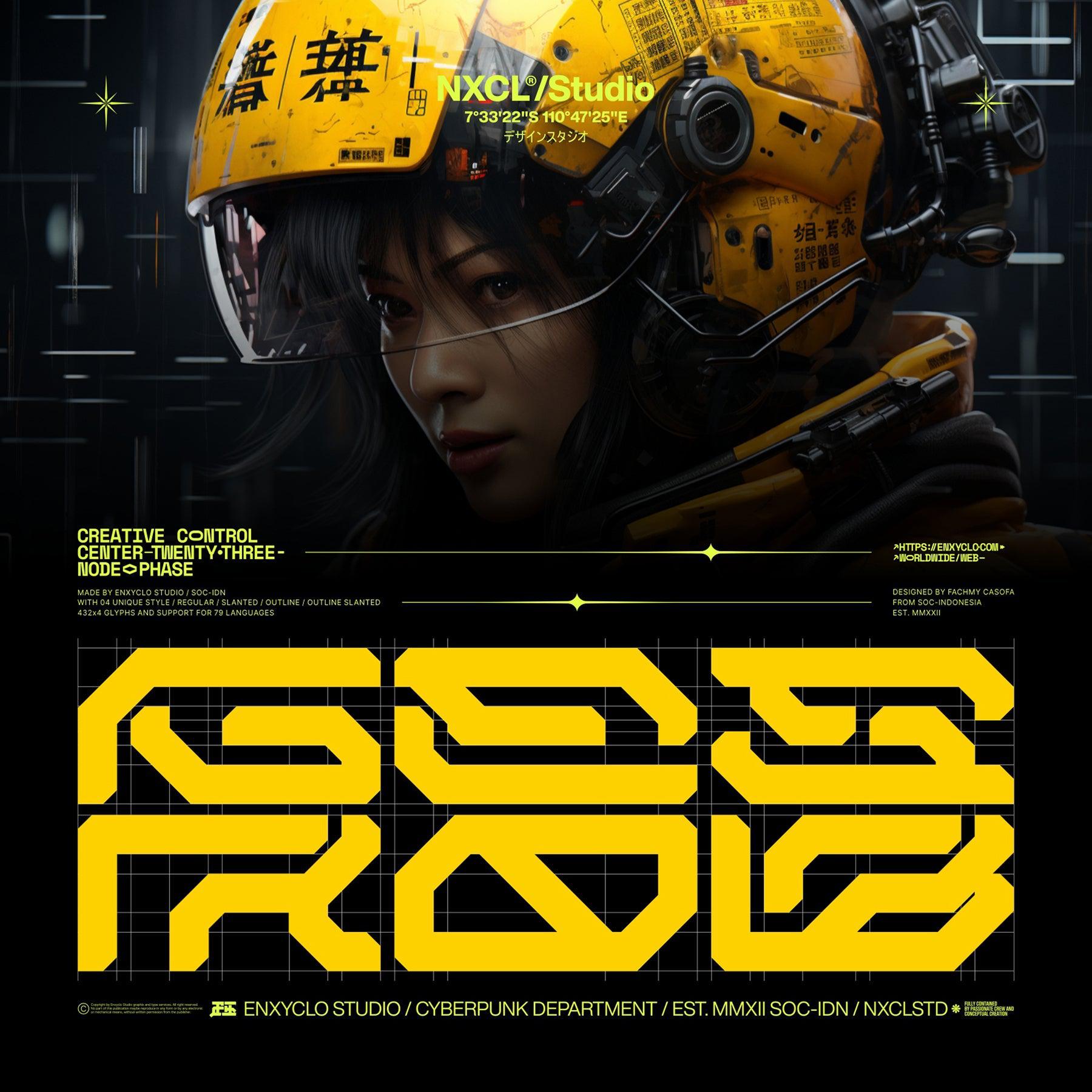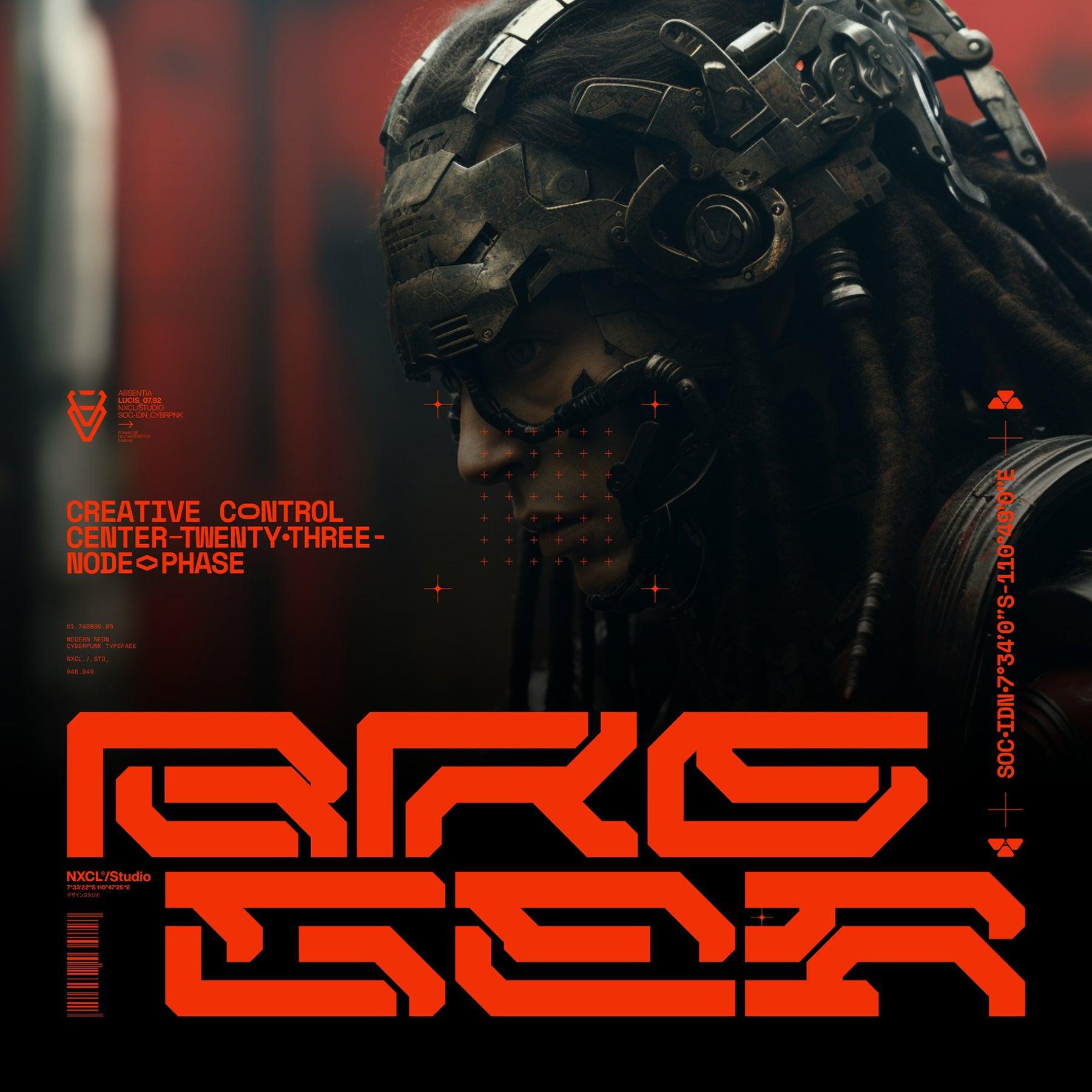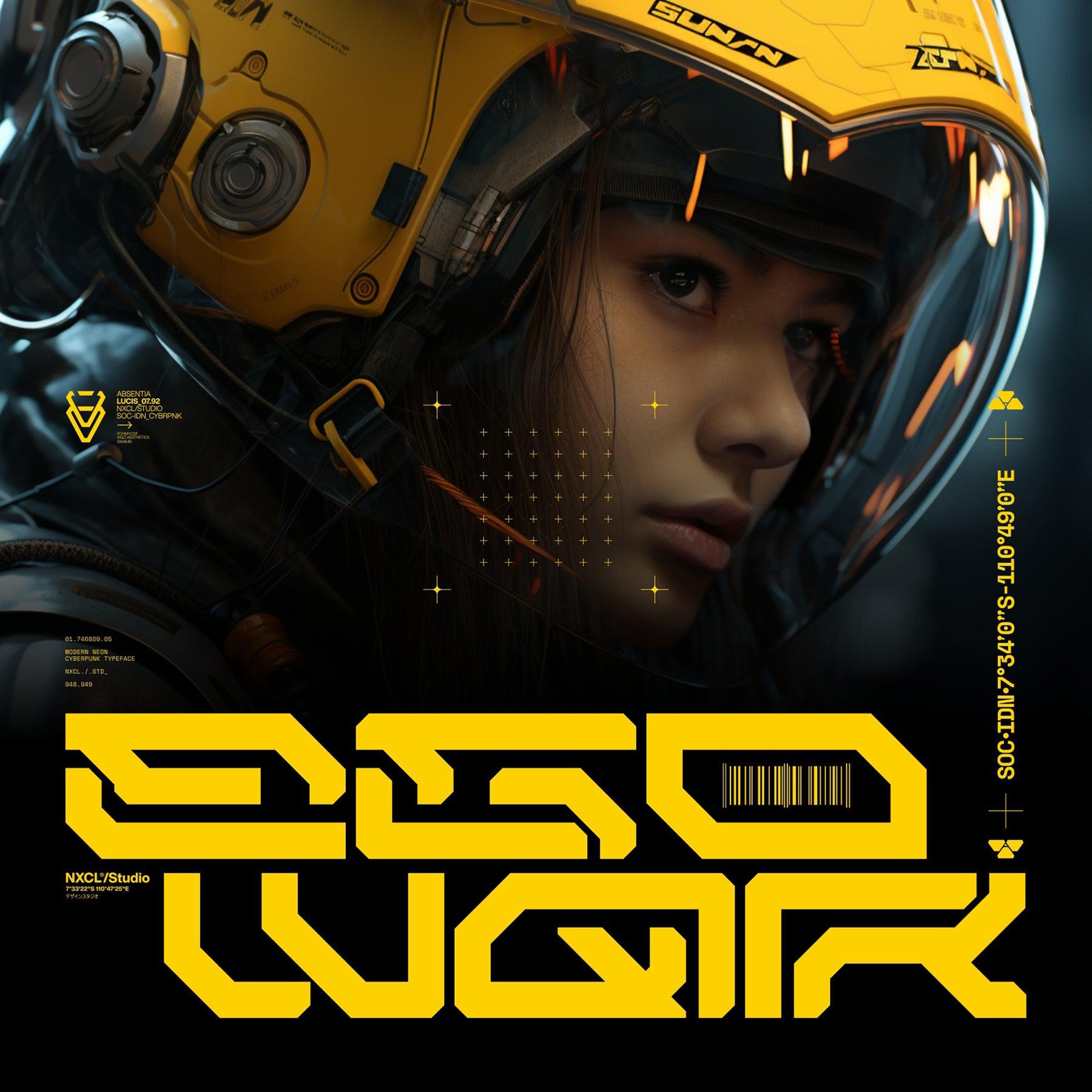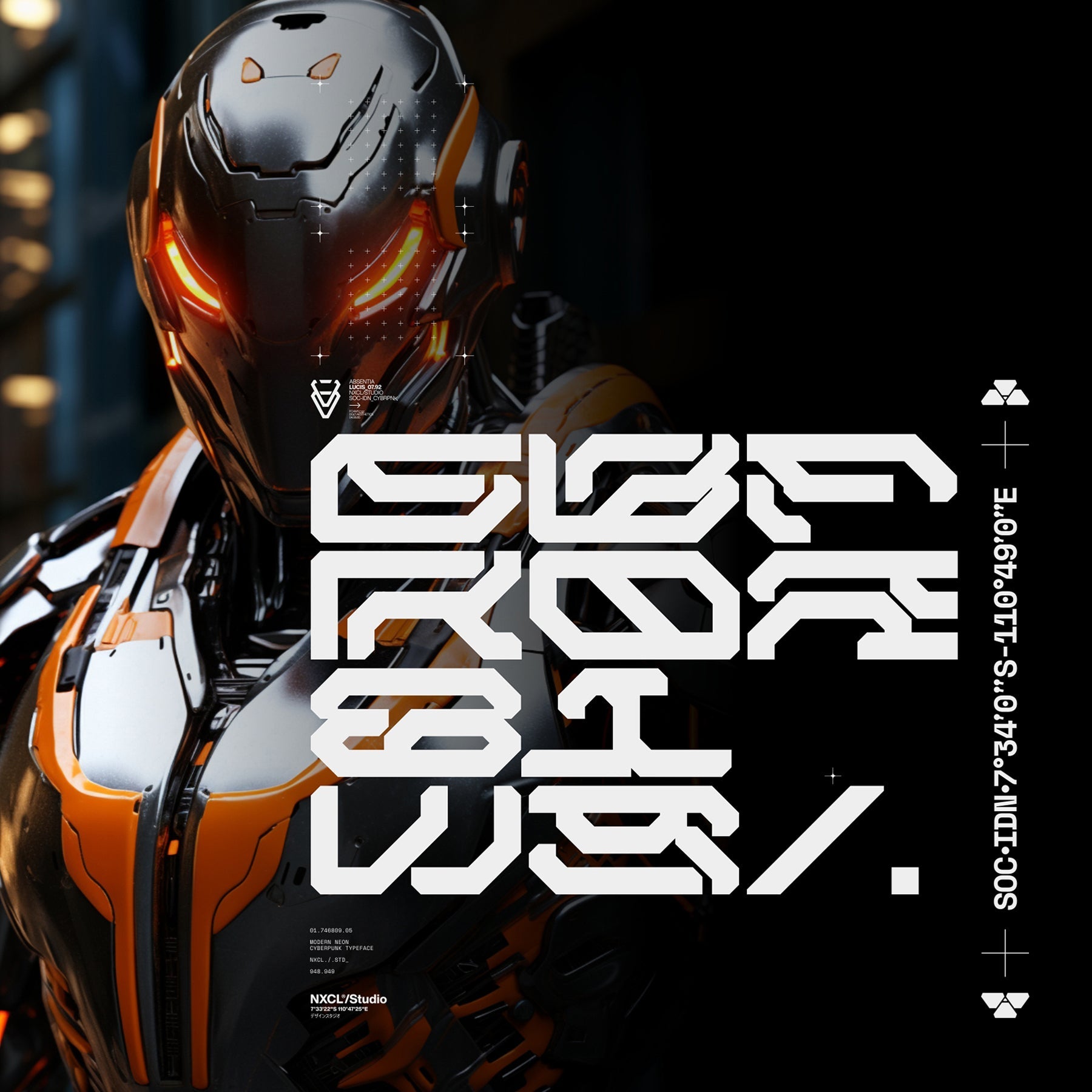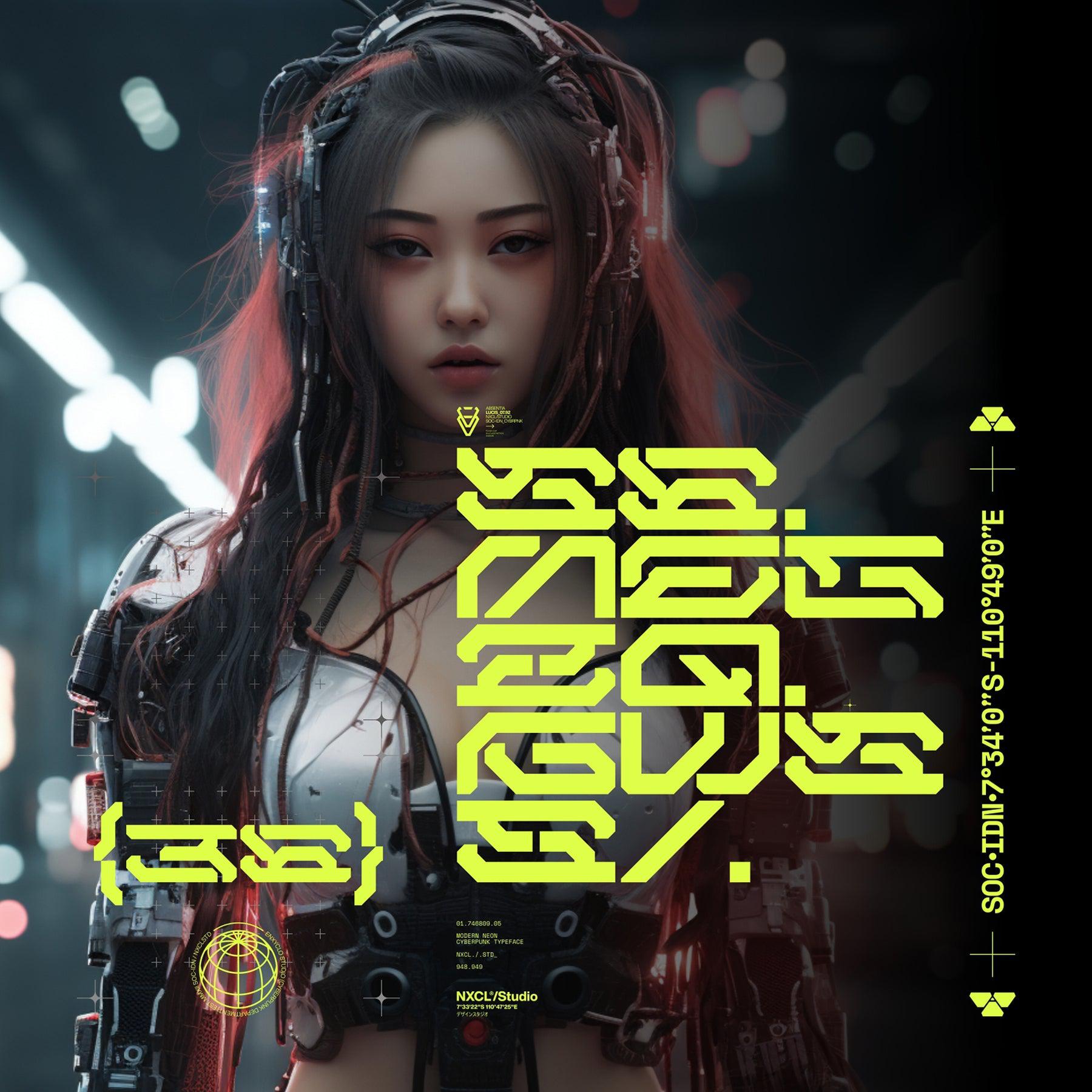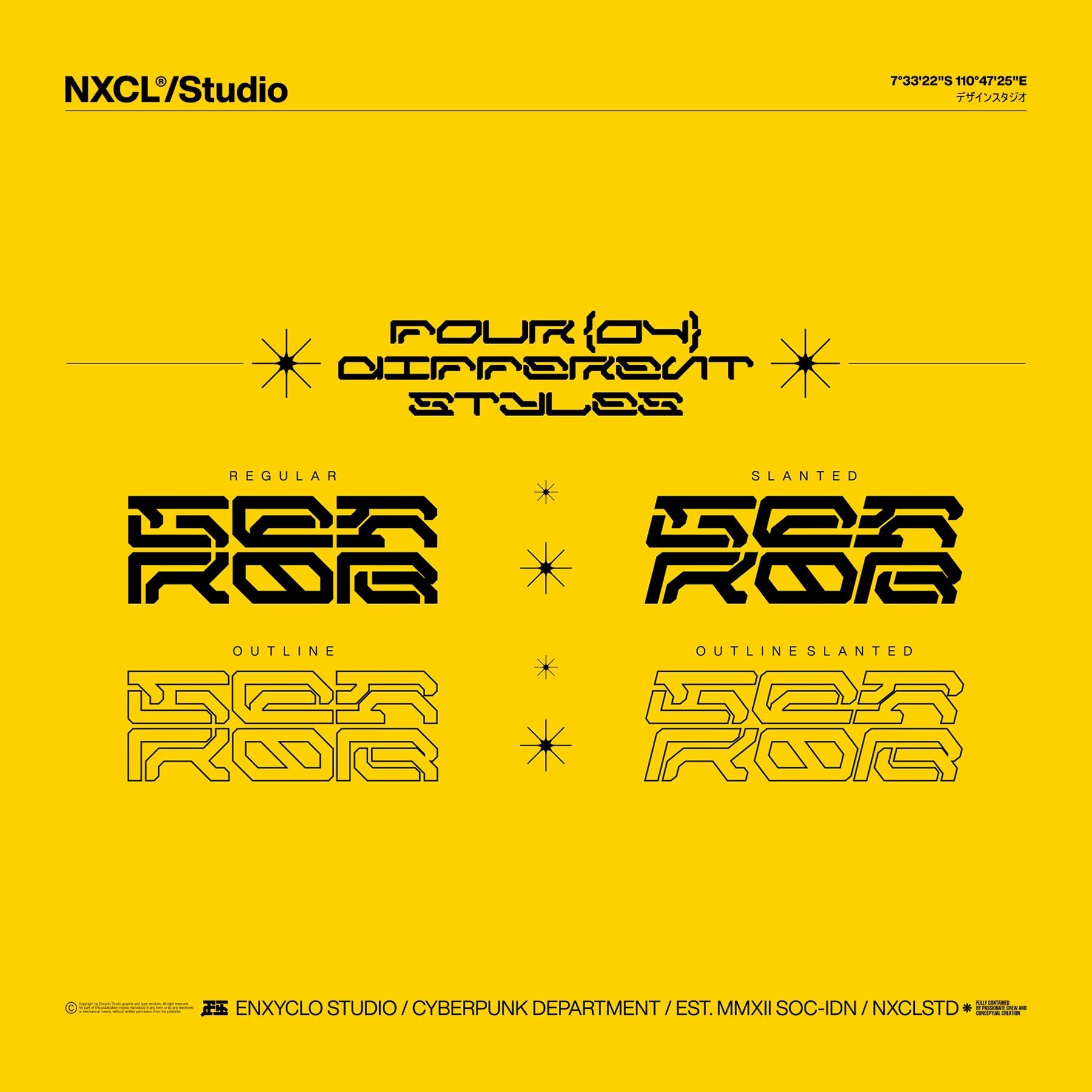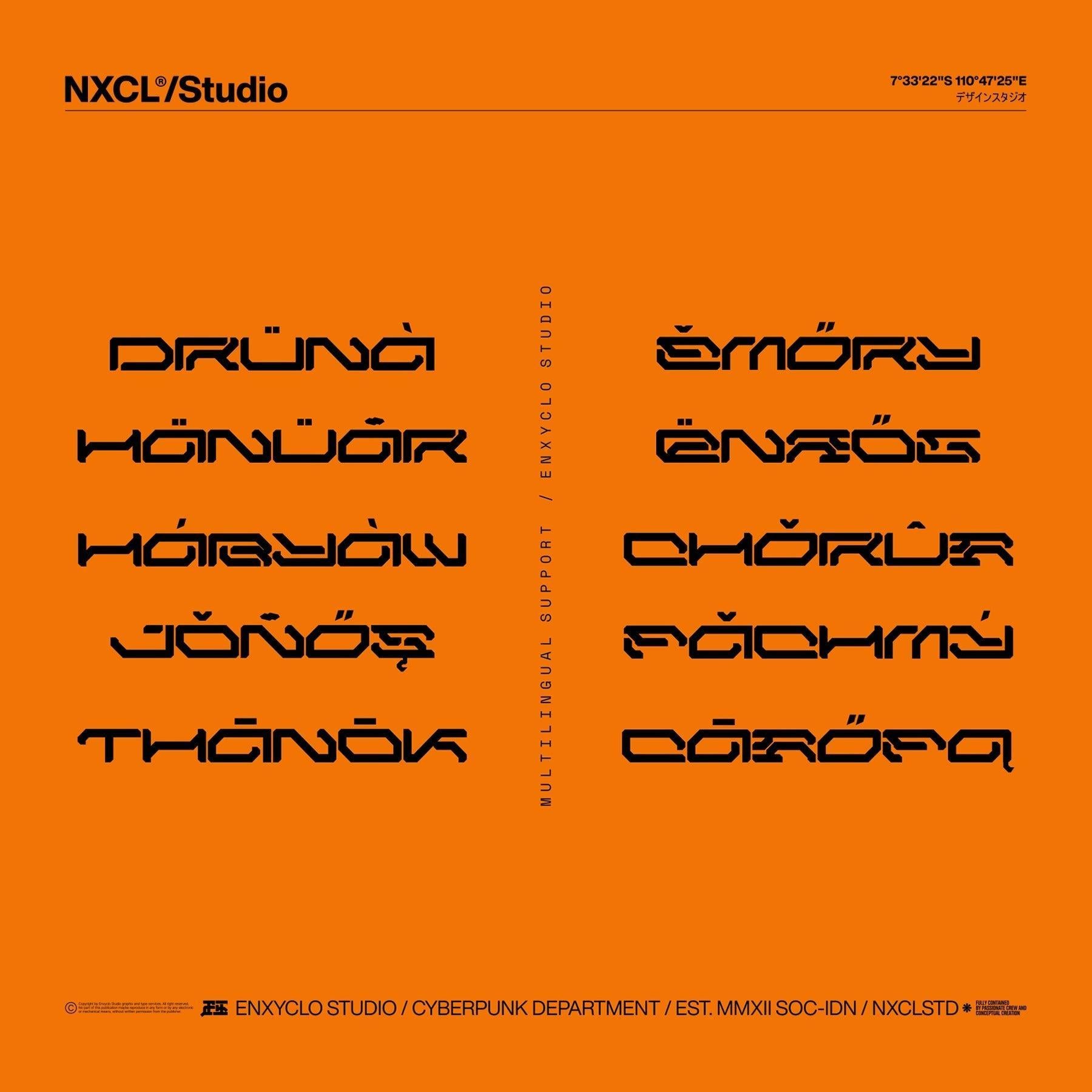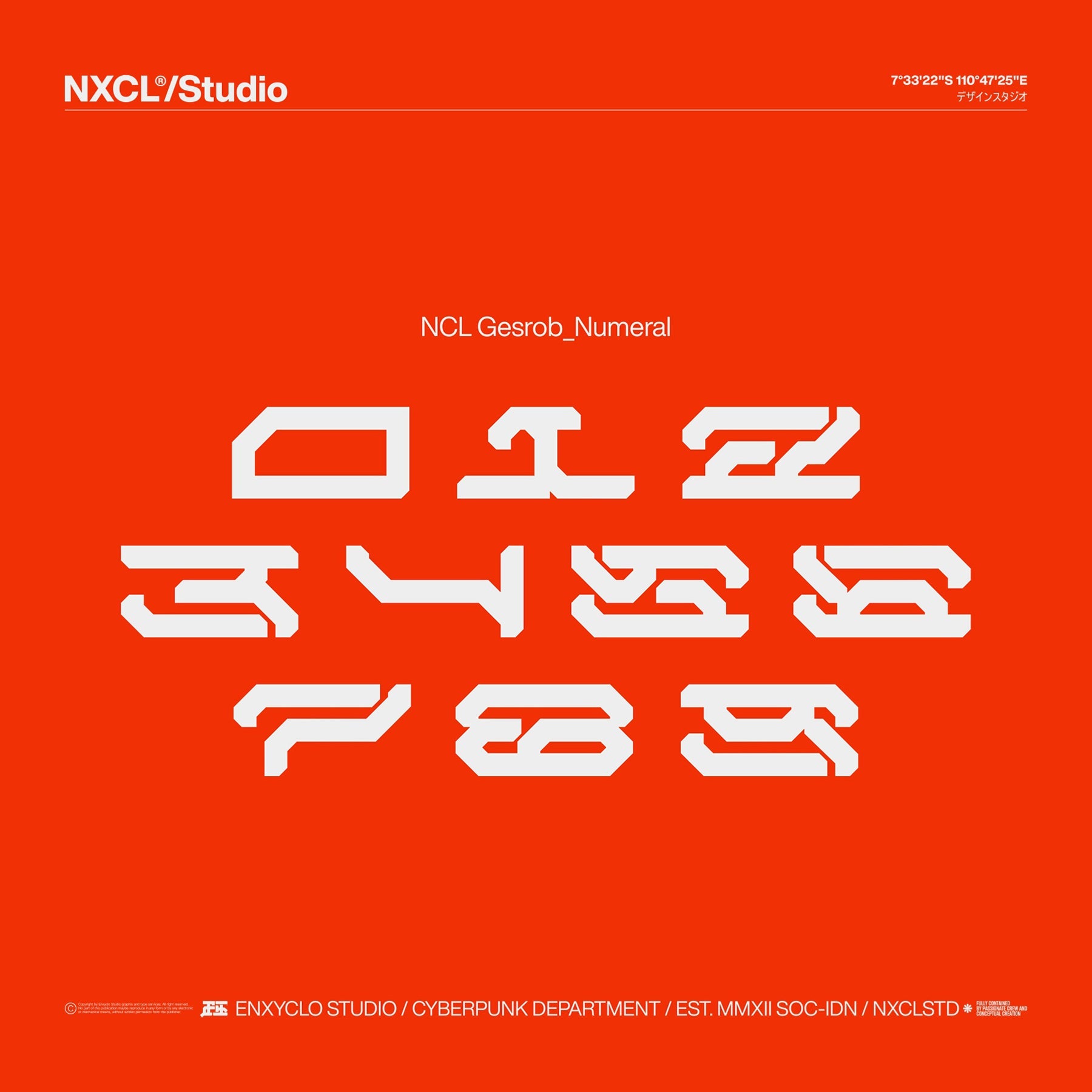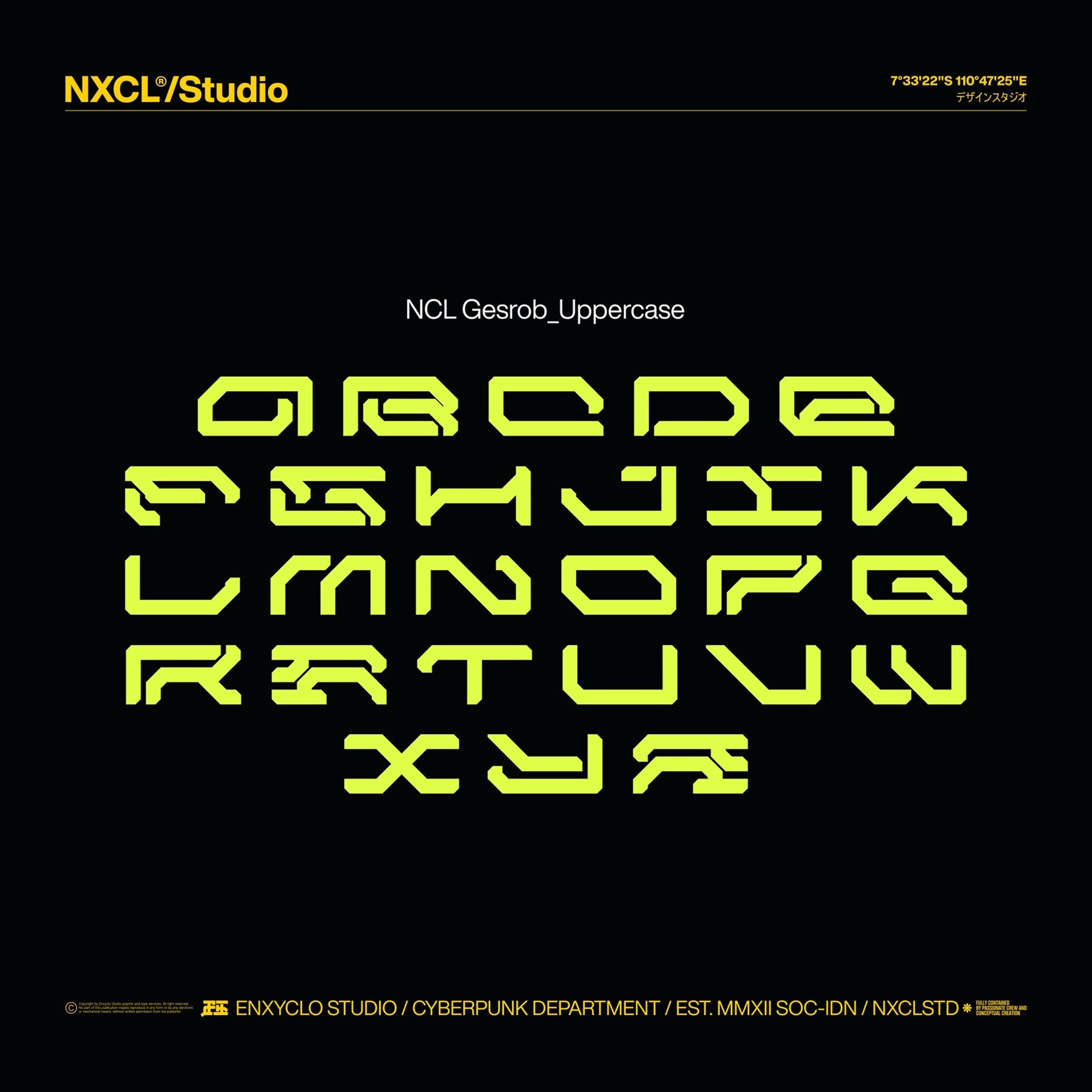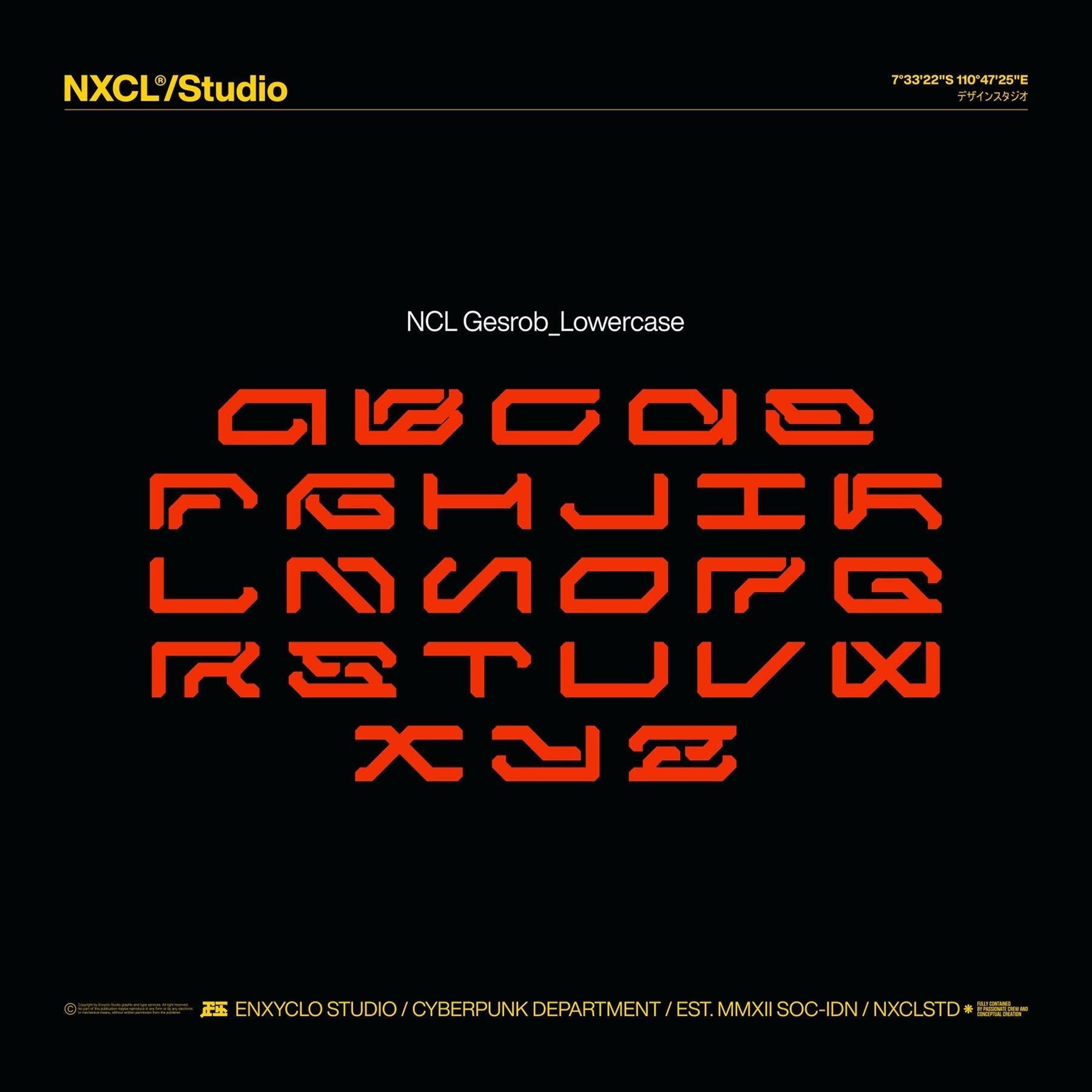
NCL GESROB - サイバーパンク未来的なメカ フォント
The NCL GESROB is a cyberpunk futuristic mecha font that offers modern aesthetics for various design needs. It comes in four styles: Regular, Slanted, Outline, and Outline Slanted, with 432 glyphs for each style and total of 1728 glyphs. The font supports uppercase, lowercase, numerals, punctuation, symbols, and three stylistic sets. It's compatible with 79 languages and is available in True Type Font (TTF), Open Type Font (OT
Ideal for modern cyberpunk and futuristic design projects. Perfect for websites, posters, logos, and album covers, ensuring a unique and innovative aesthetic that enhances visual storytelling.